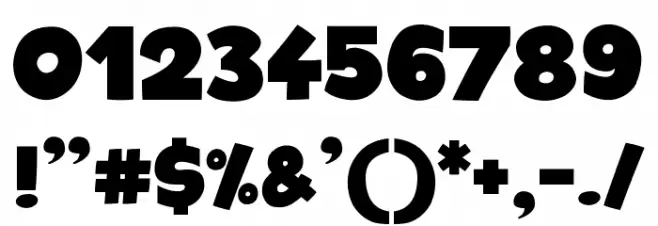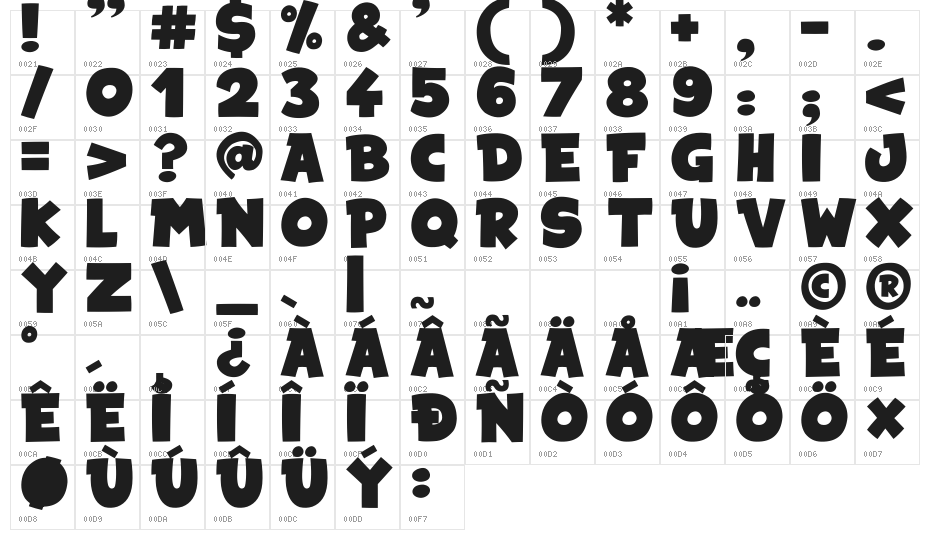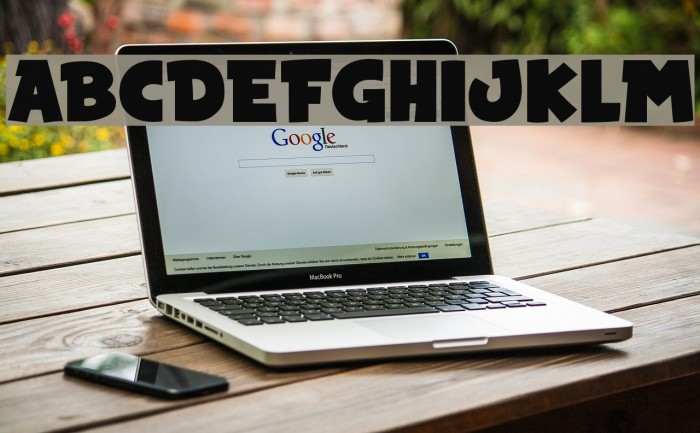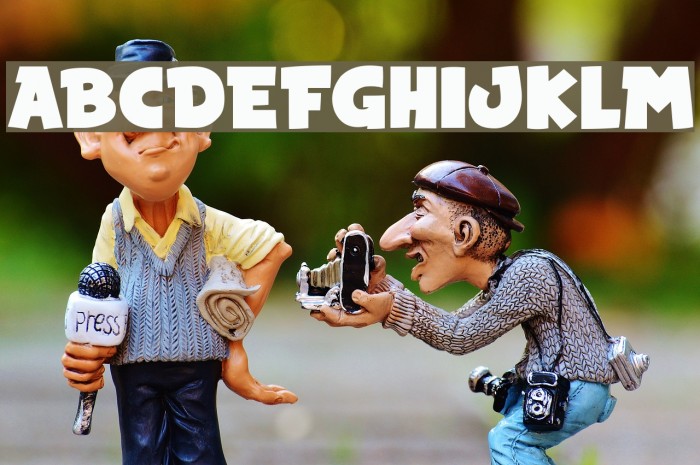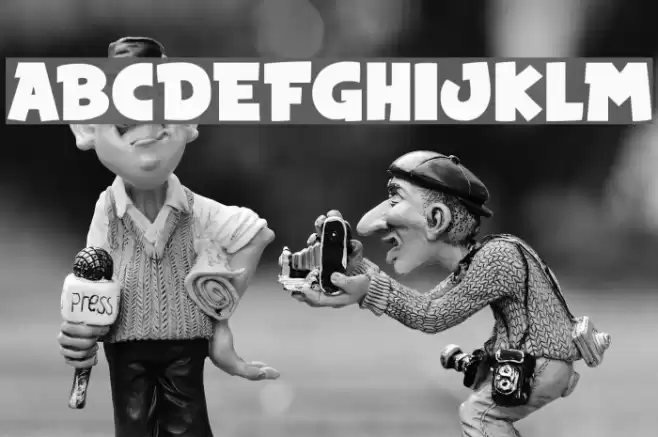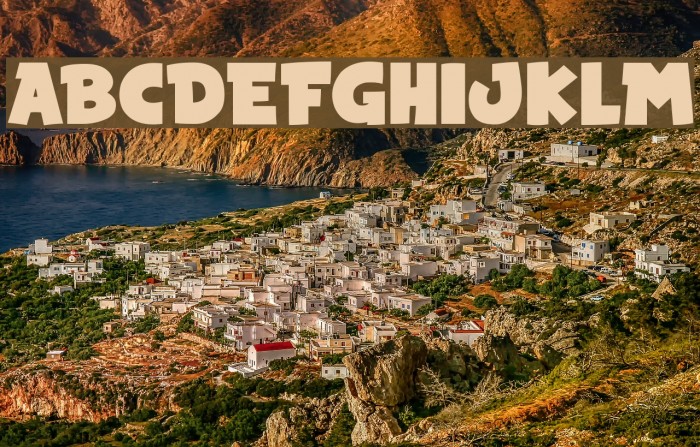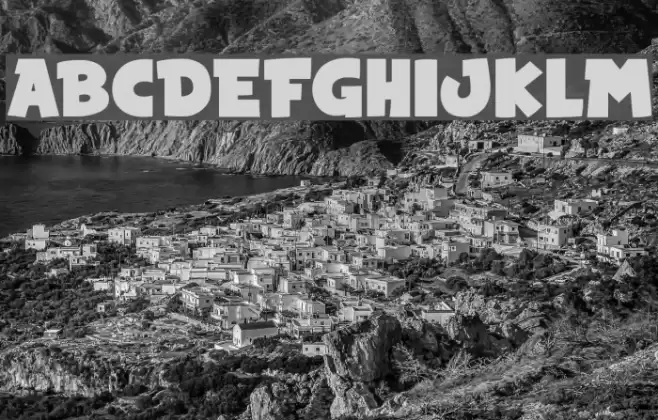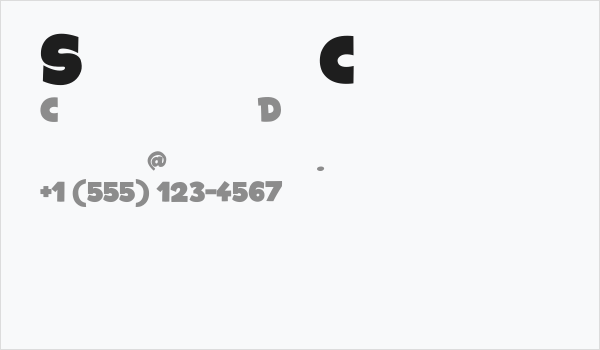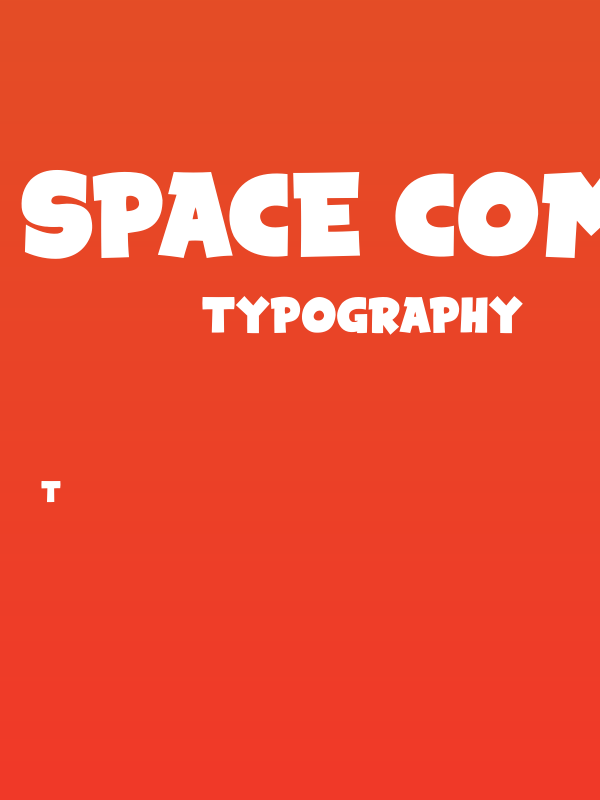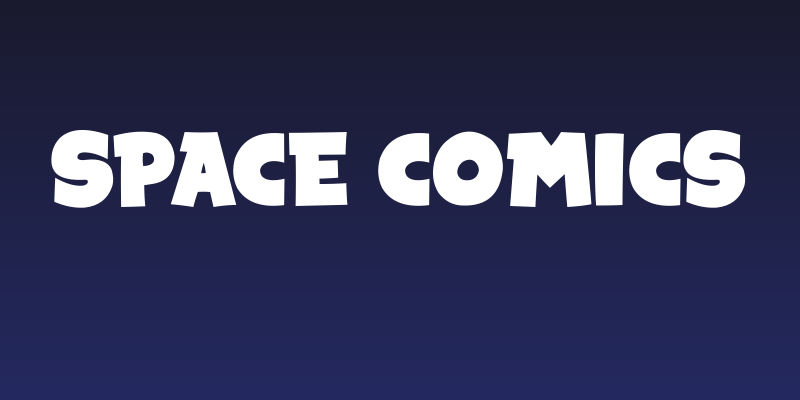
Space Comics Font
Space Comics Description
This font features bold, playful characters with a strong comic book influence. The letters are thick and rounded, giving them a friendly and approachable appearance. The uppercase and lowercase letters maintain a consistent style, with exaggerated curves and a slightly uneven baseline that adds to the whimsical feel. The numbers are equally bold, ensuring readability and consistency across different uses. Special characters are designed to match the overall playful aesthetic, making this font ideal for creative and informal projects.
| Overall Style | Playful, Comic |
| Proposed Projects | Ideal for comic books, children's books, playful branding, posters, and creative advertisements. |